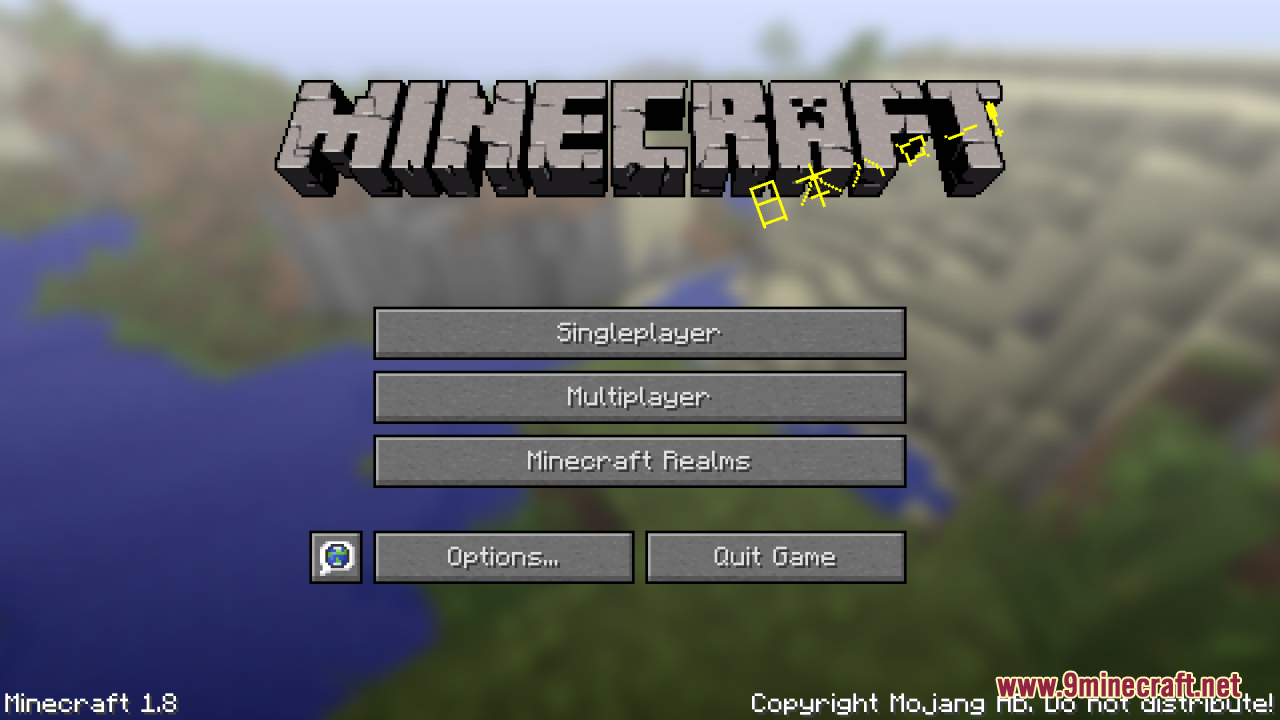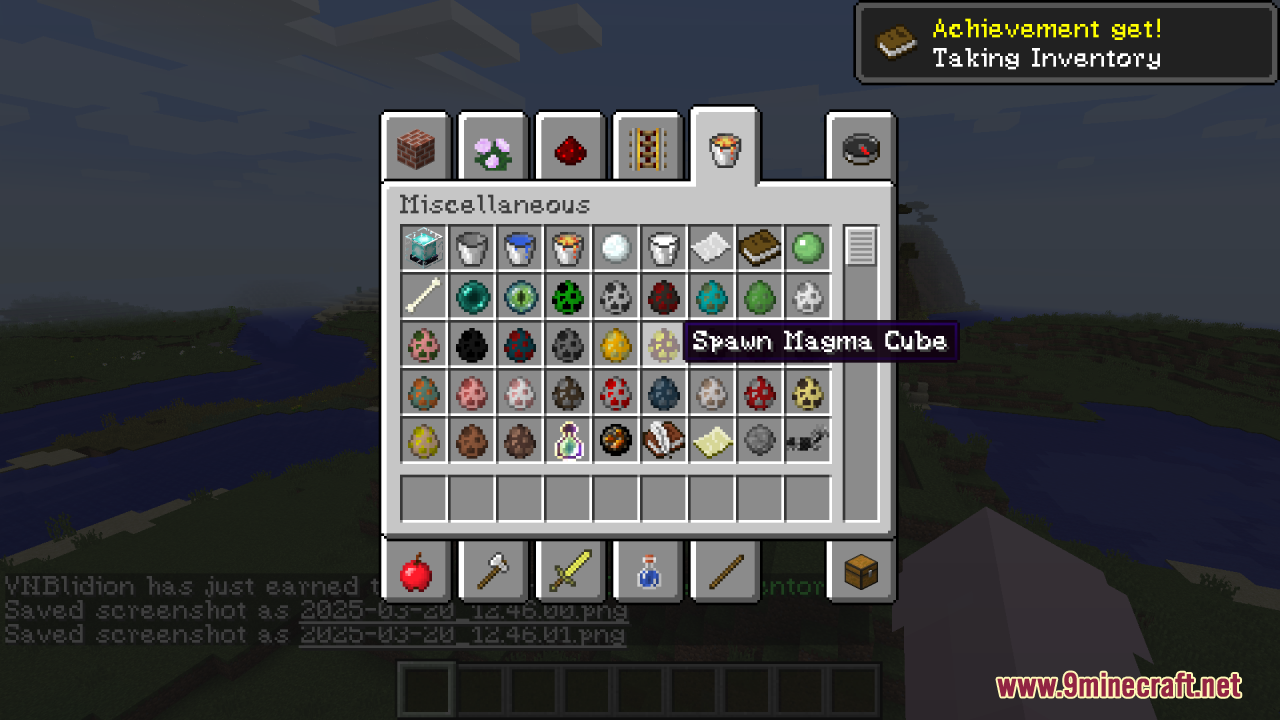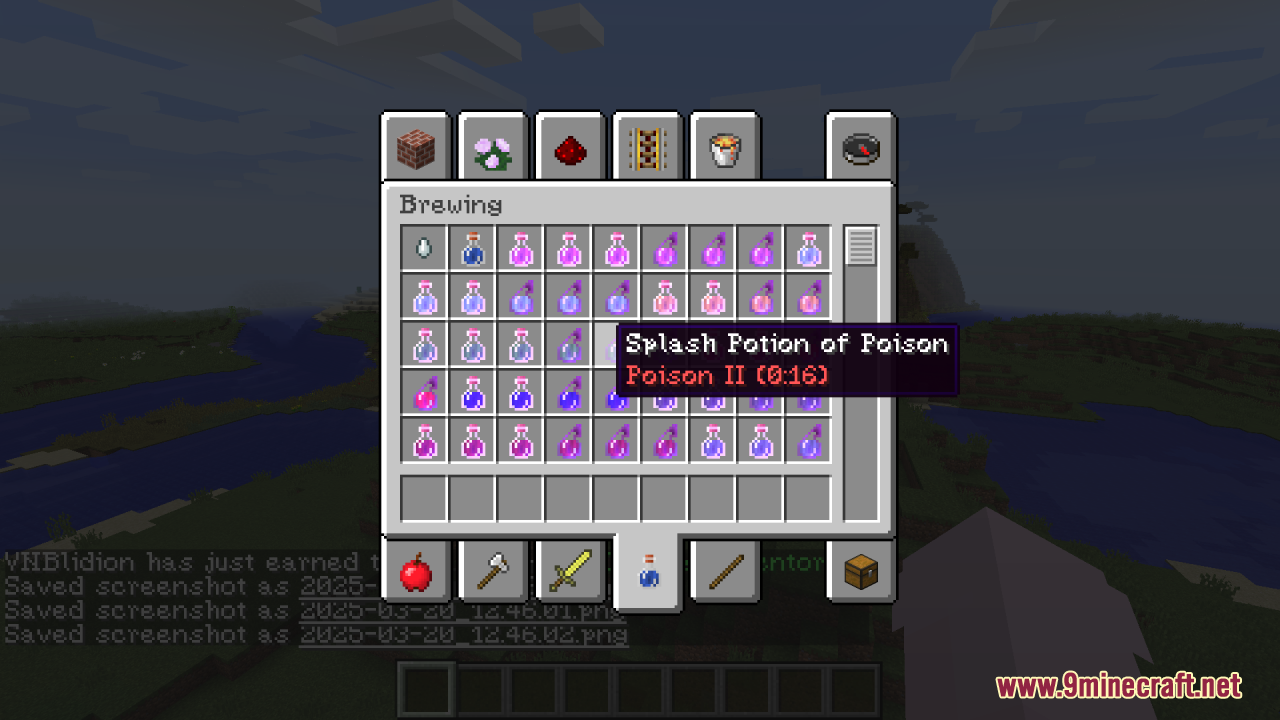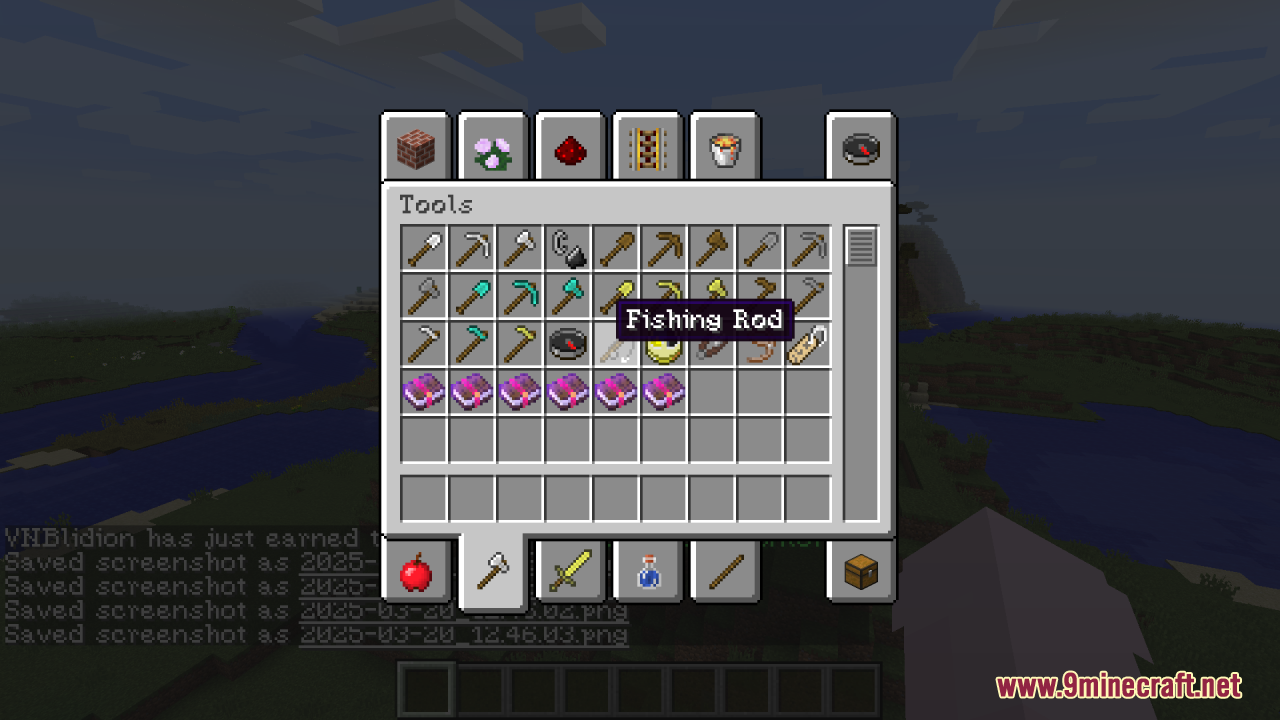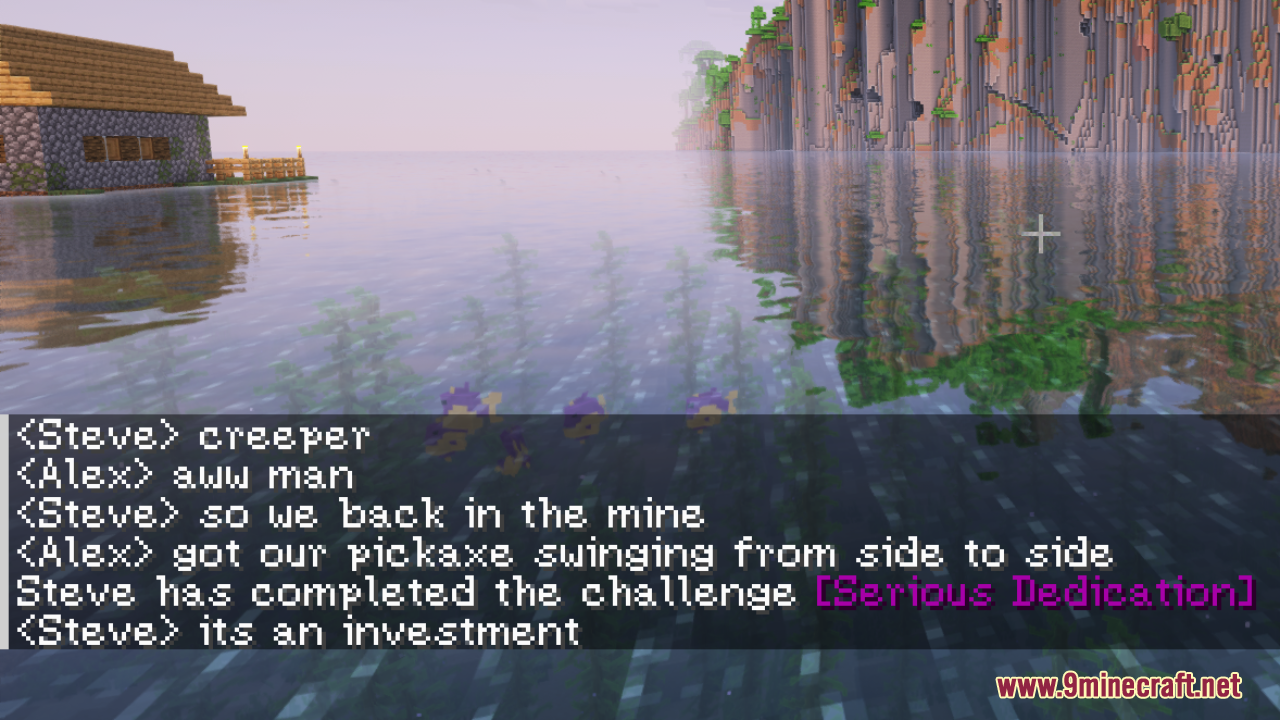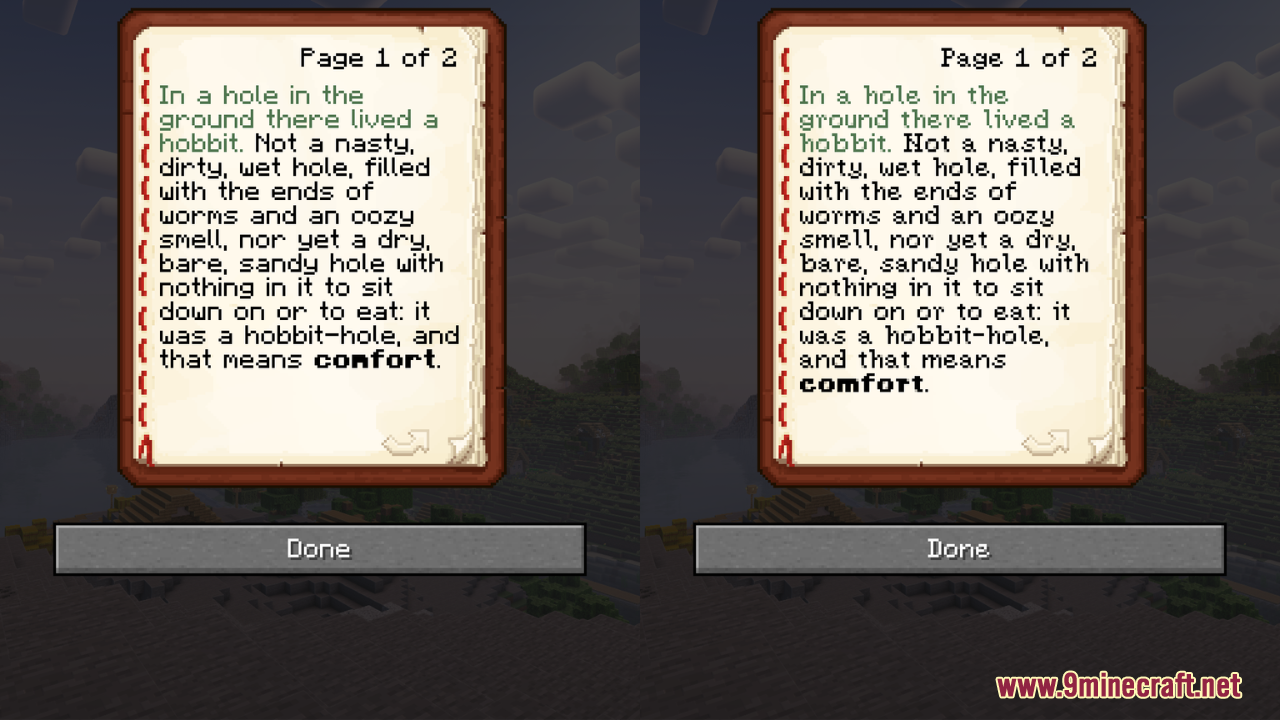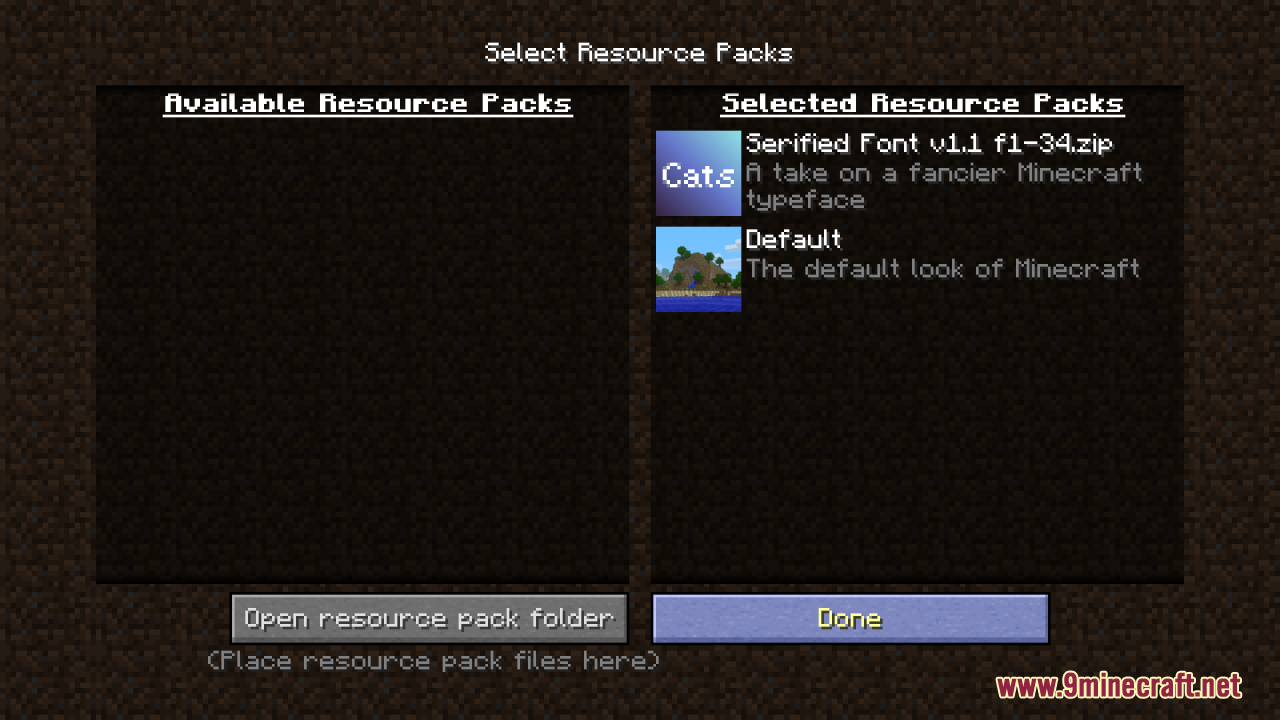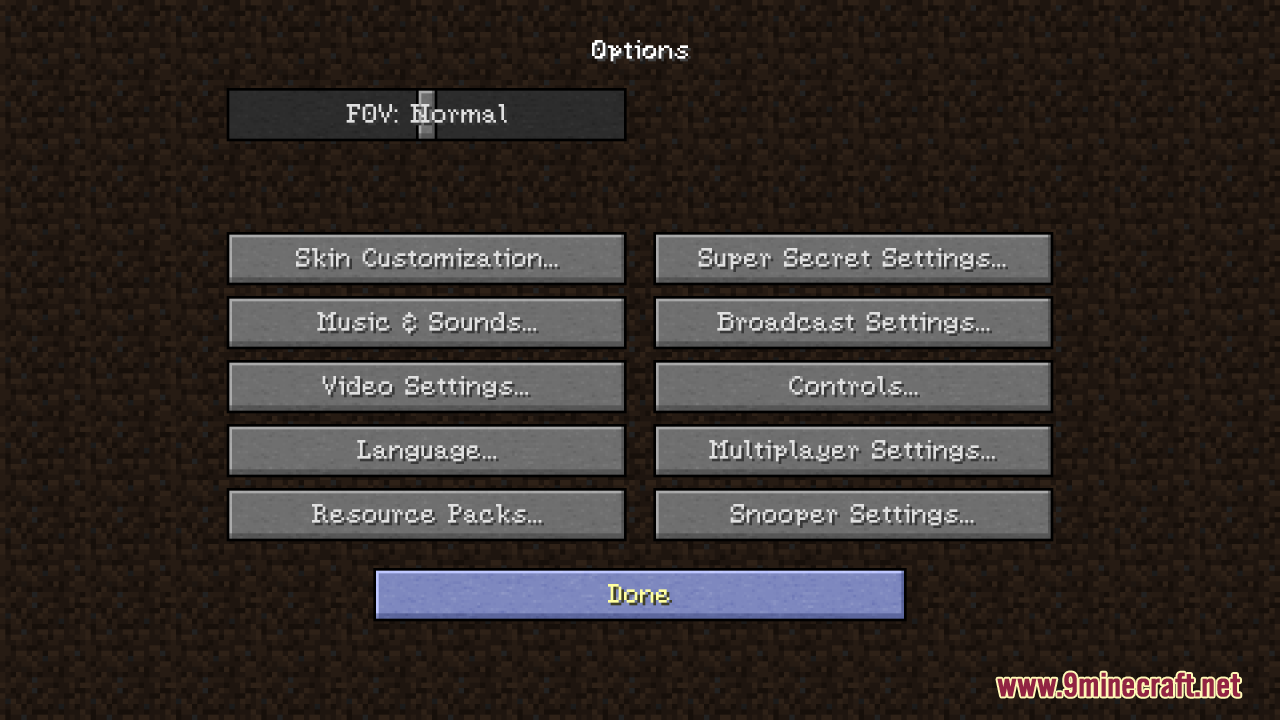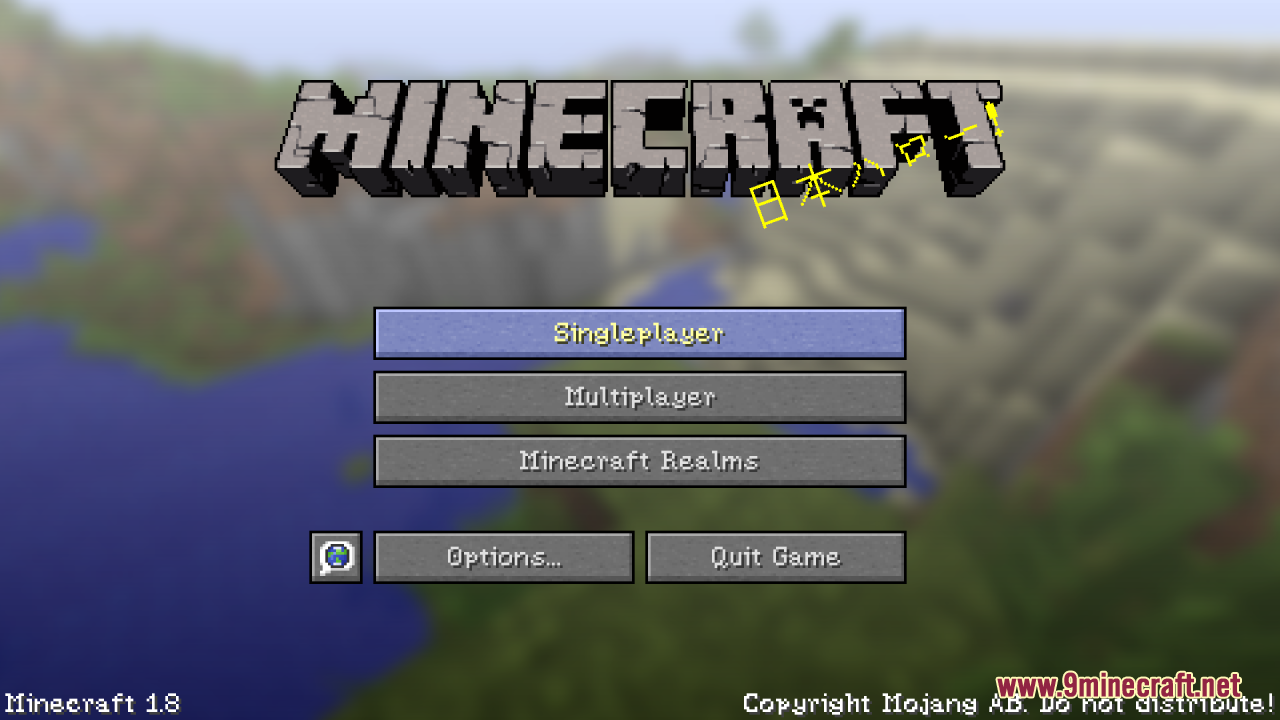
Serified Font Resource Pack (1.21.8, 1.20.1) – Texture Pack
Serified Font Resource Pack (1.21.8, 1.20.1) simply reimagines Minecraft’s font, giving it a fantasy-inspired, medieval aesthetic that aligns beautifully with the game’s magical and adventurous atmosphere. Designed to feel more human and legible, this custom font brings a touch of elegance while maintaining readability. Additionally, the pack utilizes semi-transparent pixels for anti-aliasing, ensuring smooth, refined lettering that enhances the overall visual experience. Whether you’re delving into enchanted realms or constructing grand castles, this font pack adds a subtle but impactful layer of immersion to your game.